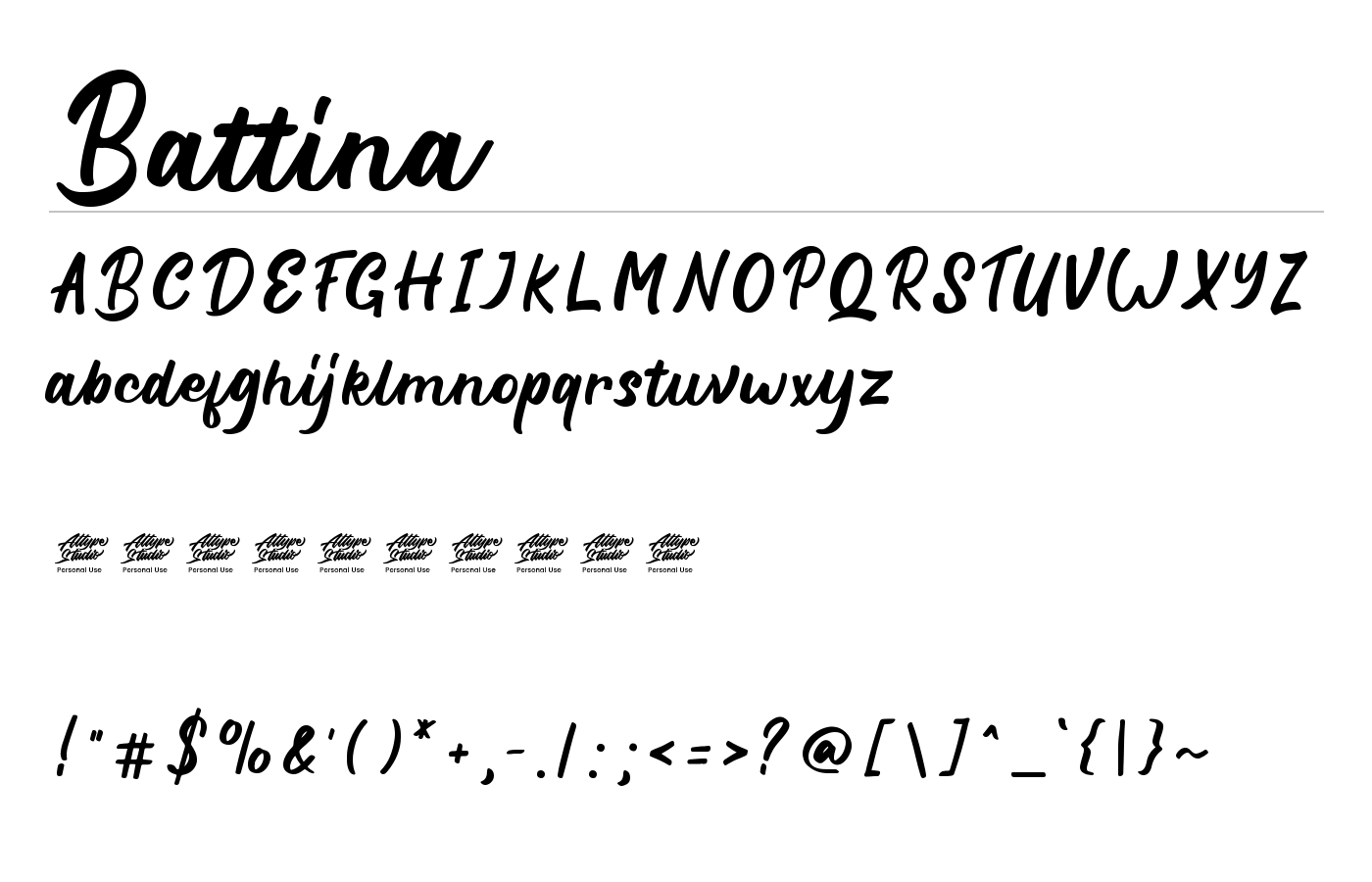
Battina is a lively script font with a friendly, hand-lettered feel, featuring smooth, rounded strokes and moderate weight that give it a warm and approachable personality. Its fluid letterforms and informal style make it ideal for creative branding, casual invitations, and playful headlines where a personal, expressive touch is desired. This font works well for projects seeking charm and friendliness without sacrificing readability.
Battina Font
About Battina Font
| Font family | Battina Font |
| Designer | Fadli Ramadhan Iskandar |